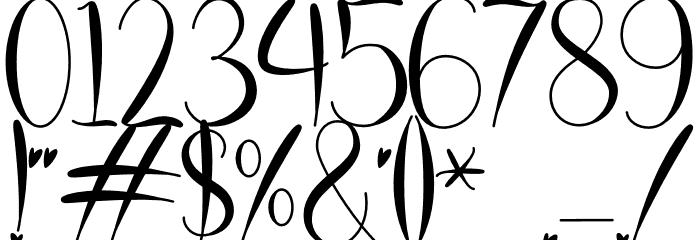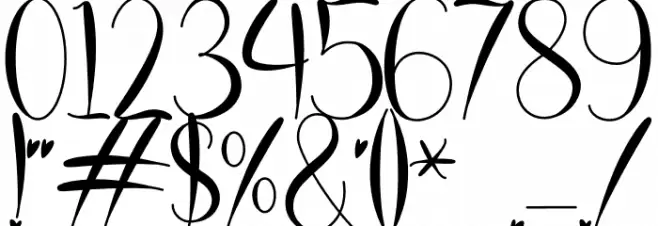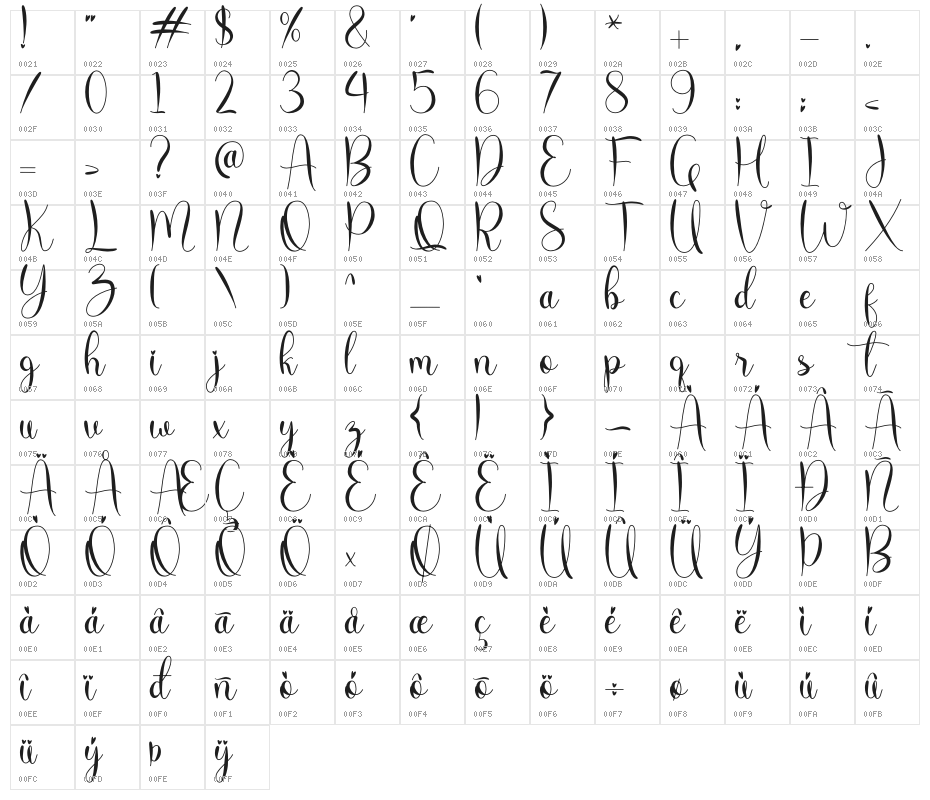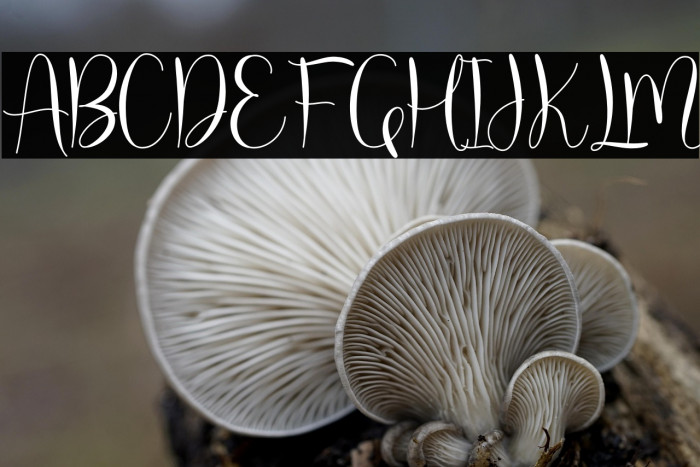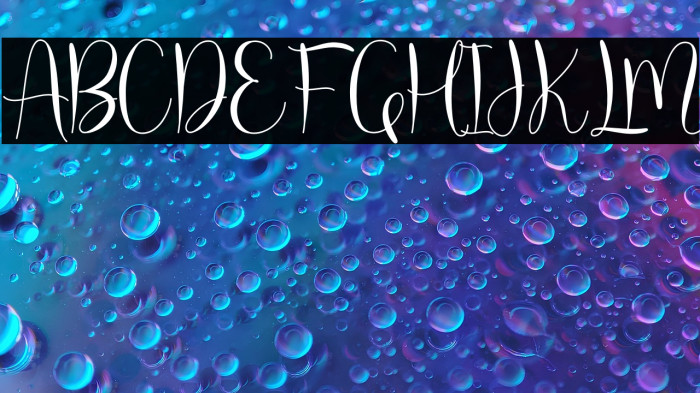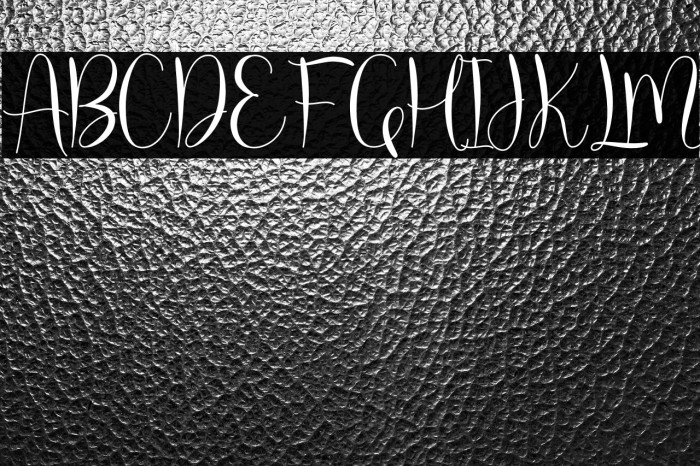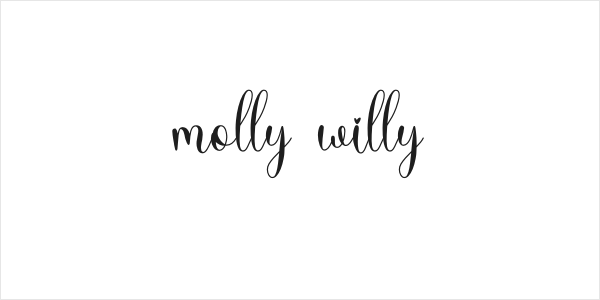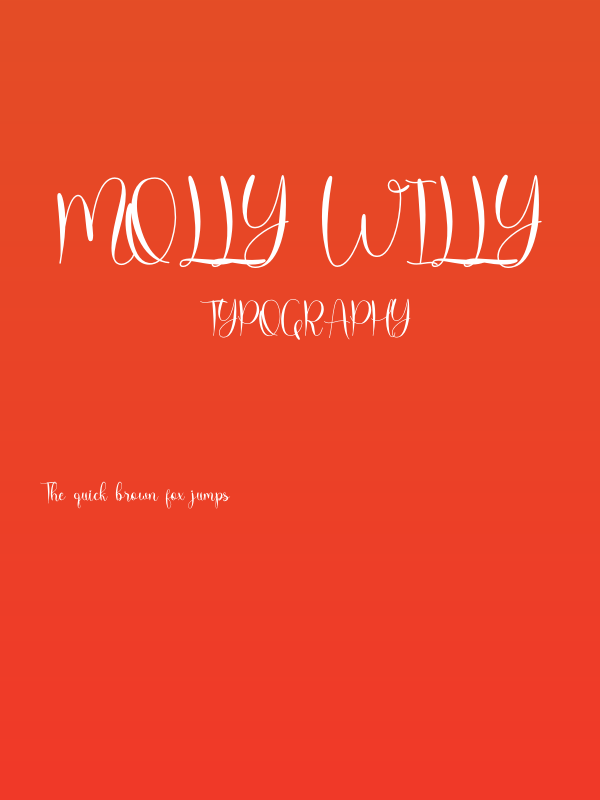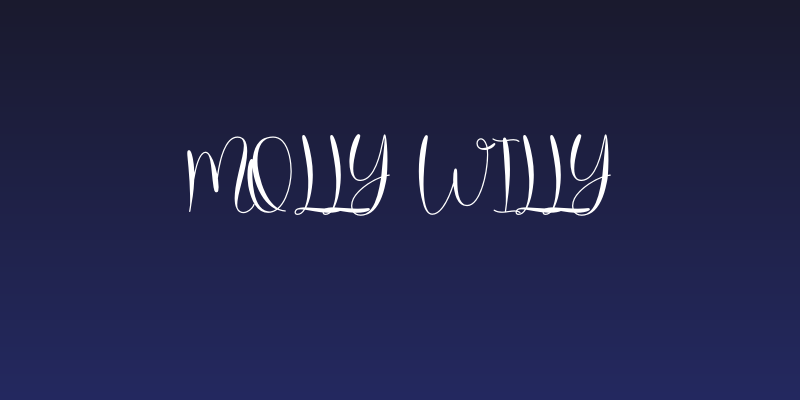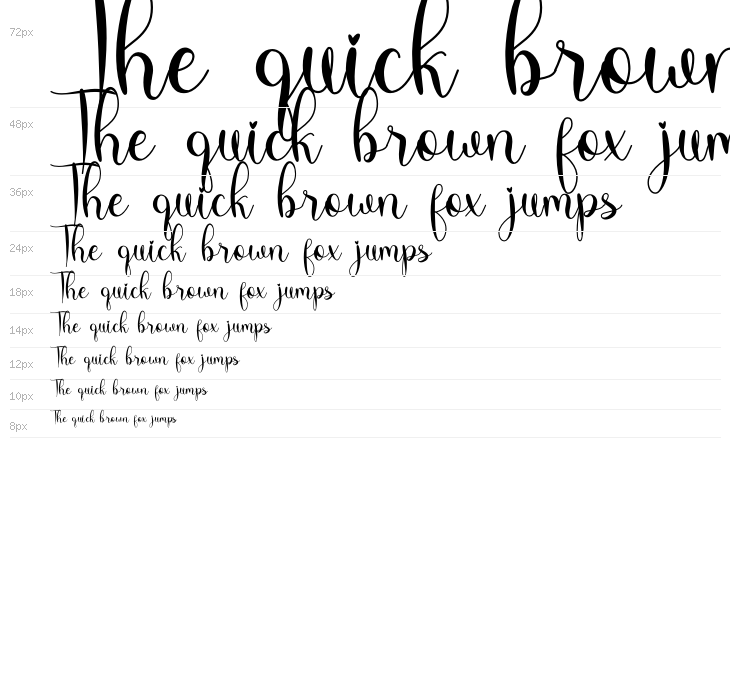
molly willy Font
molly willy Description
This font features a whimsical, handwritten style with a playful and elegant flair. The uppercase letters are tall and slender, with unique loops and swirls that add a sense of movement and creativity. The lowercase letters maintain a consistent flow, with some characters featuring distinctive flourishes that enhance the overall aesthetic. The numbers are bold and slightly exaggerated, complementing the artistic style of the letters. Special characters are creatively integrated, maintaining the font's cohesive look. This font is perfect for projects that require a touch of elegance and personality.